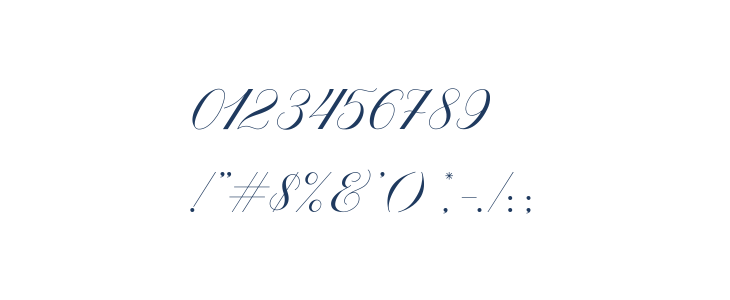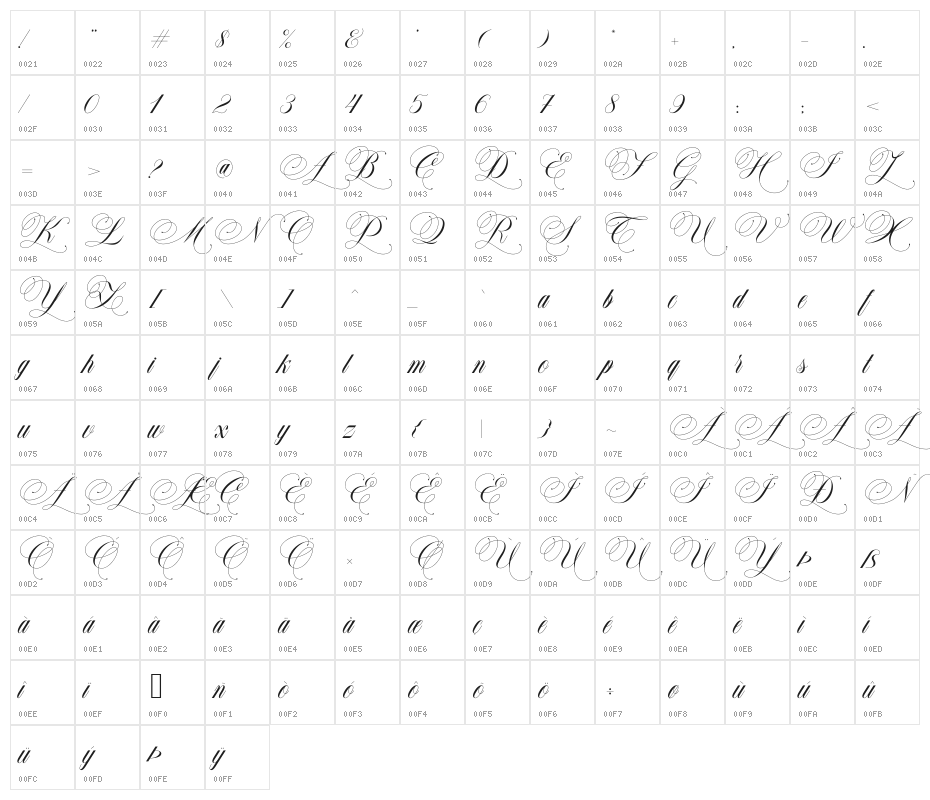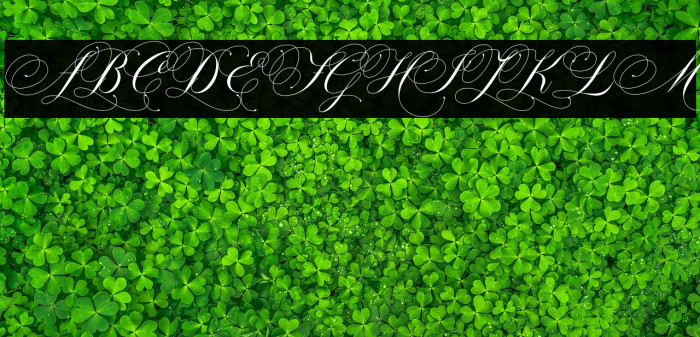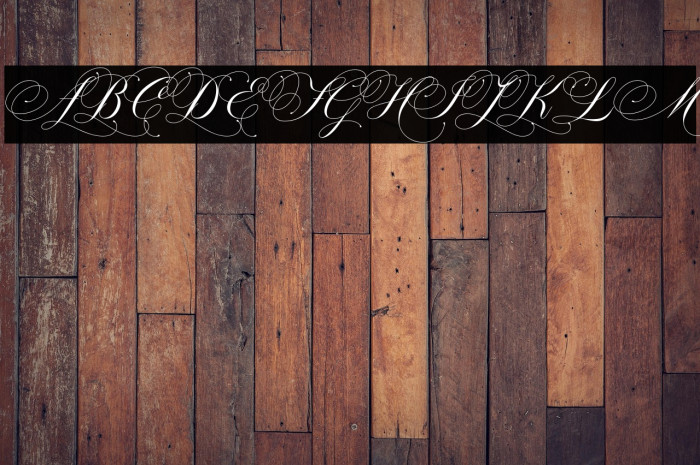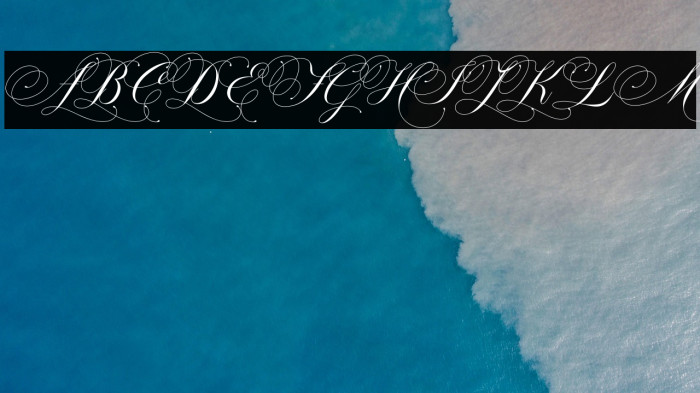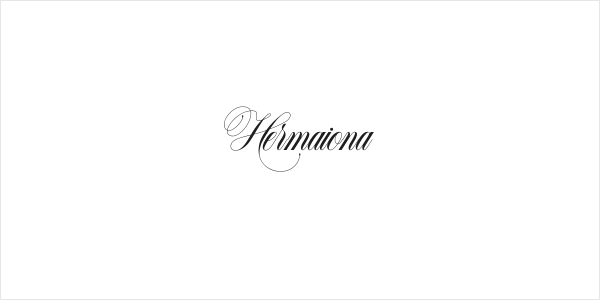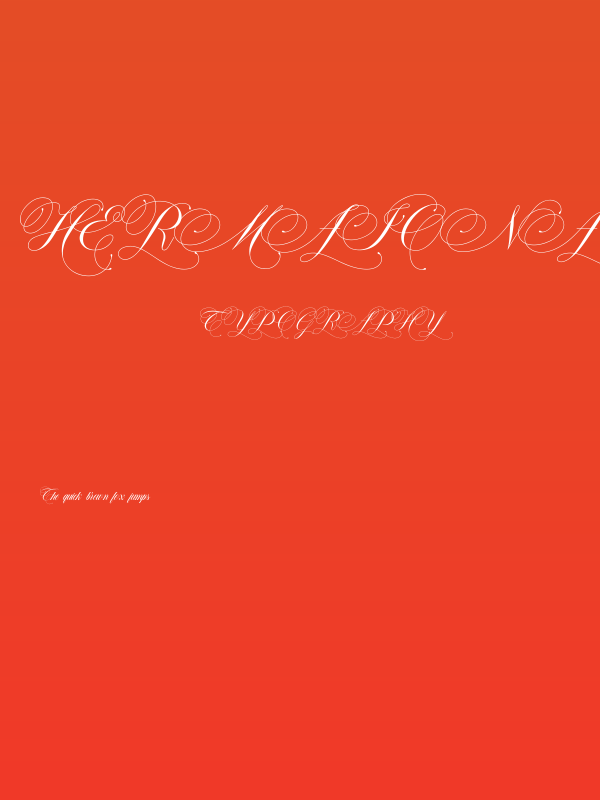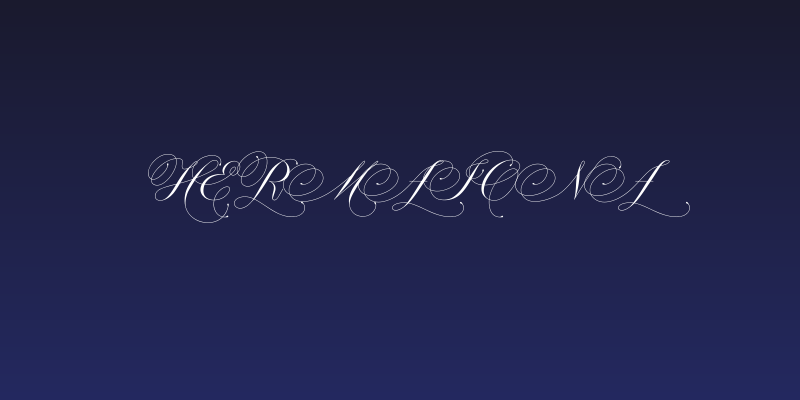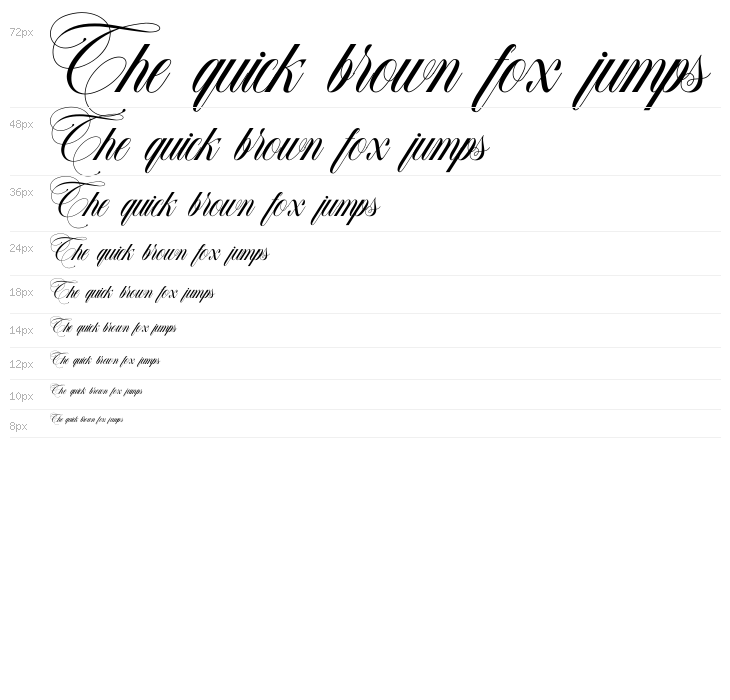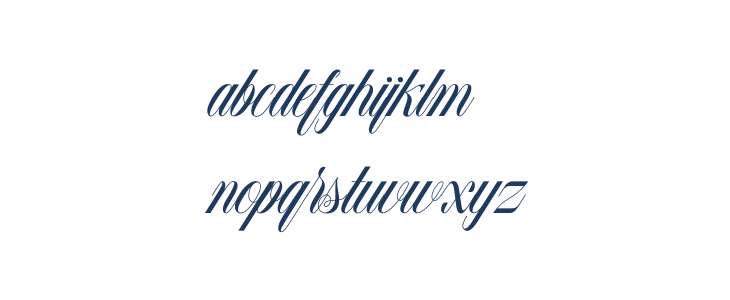
Hermaiona Font
Hermaiona Description
This elegant script font features a blend of intricate flourishes and smooth, flowing lines, creating a sophisticated and artistic appearance. The uppercase letters are adorned with elaborate swirls, making them ideal for decorative purposes. The lowercase letters maintain a more streamlined yet stylish look, offering versatility in design applications. The numerals and special characters are crafted with the same attention to detail, ensuring consistency across all glyphs. This font exudes a sense of luxury and refinement, perfect for projects that require a touch of elegance.
| Proposed Projects | Ideal for wedding invitations, luxury branding, elegant packaging, and high-end editorial design. |